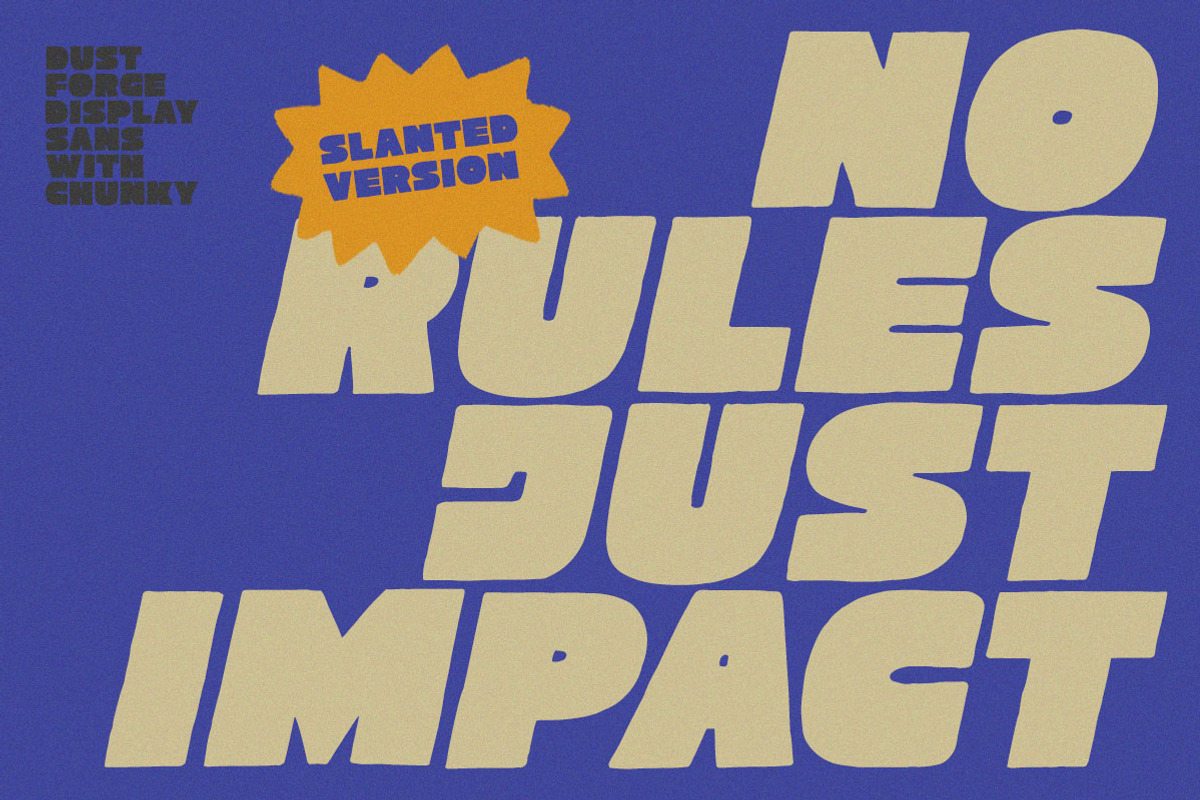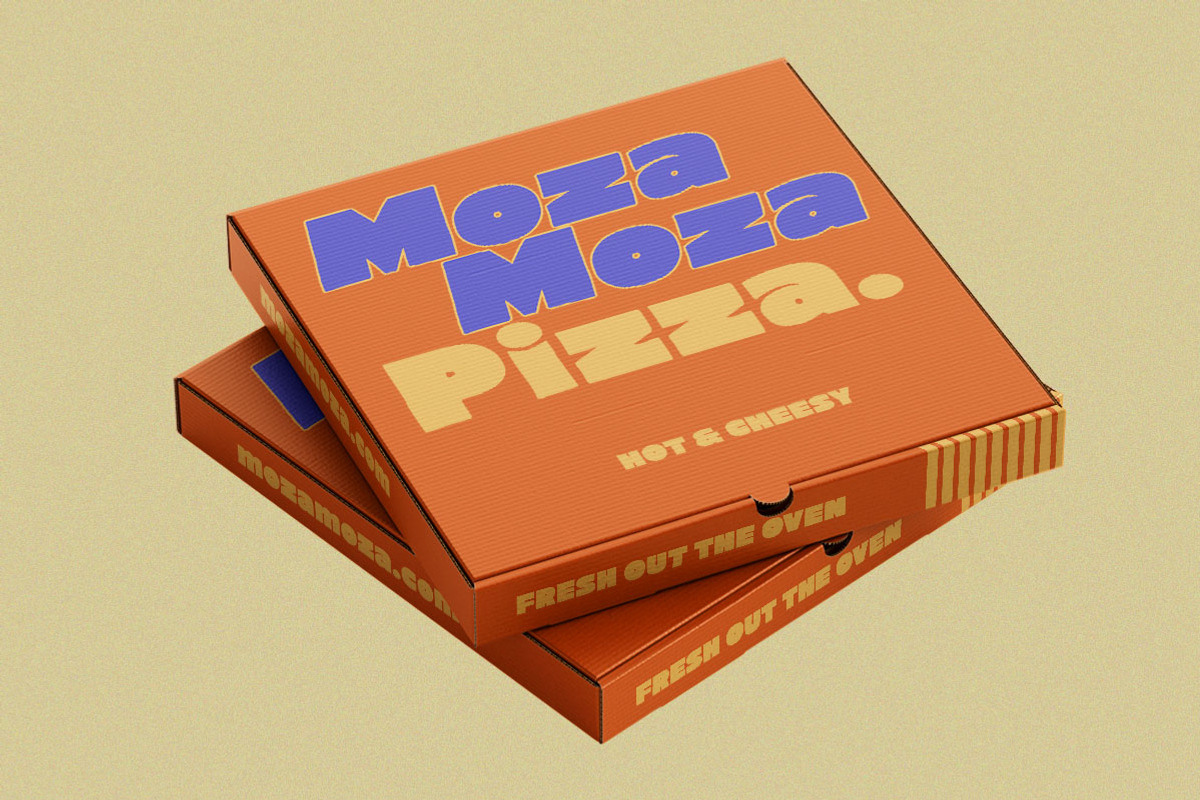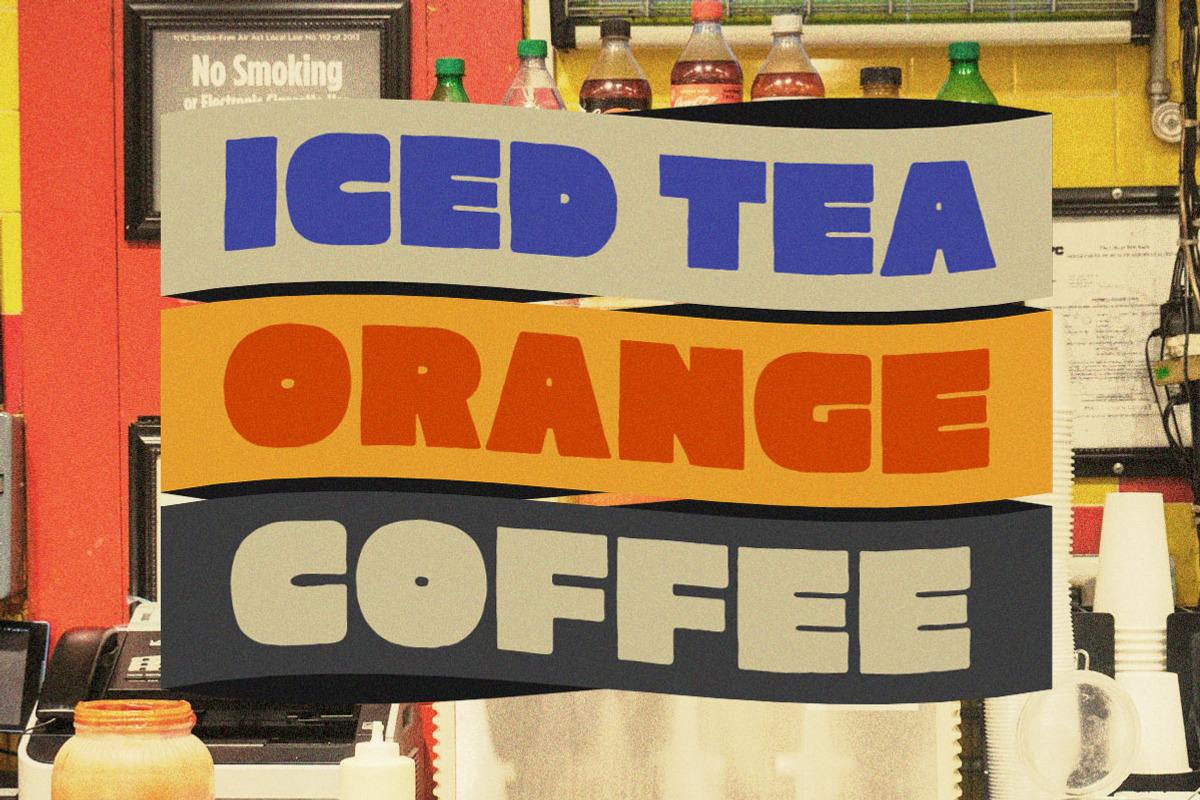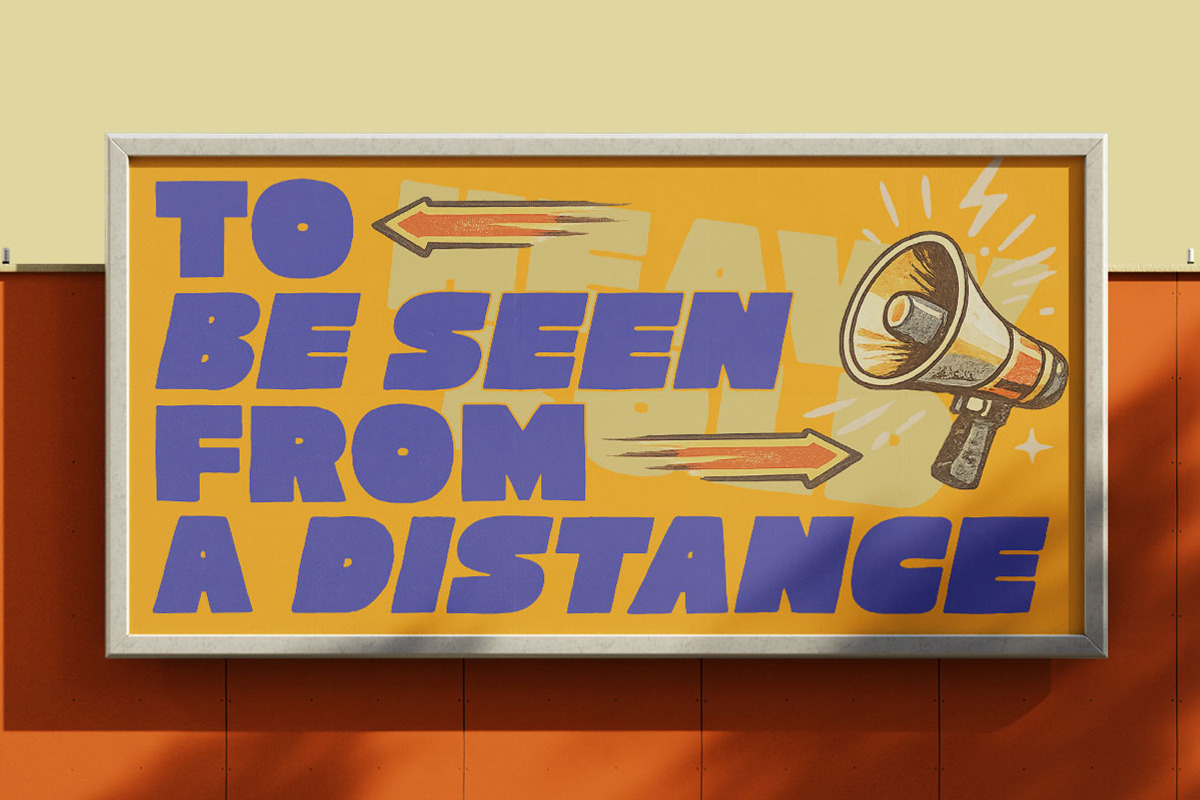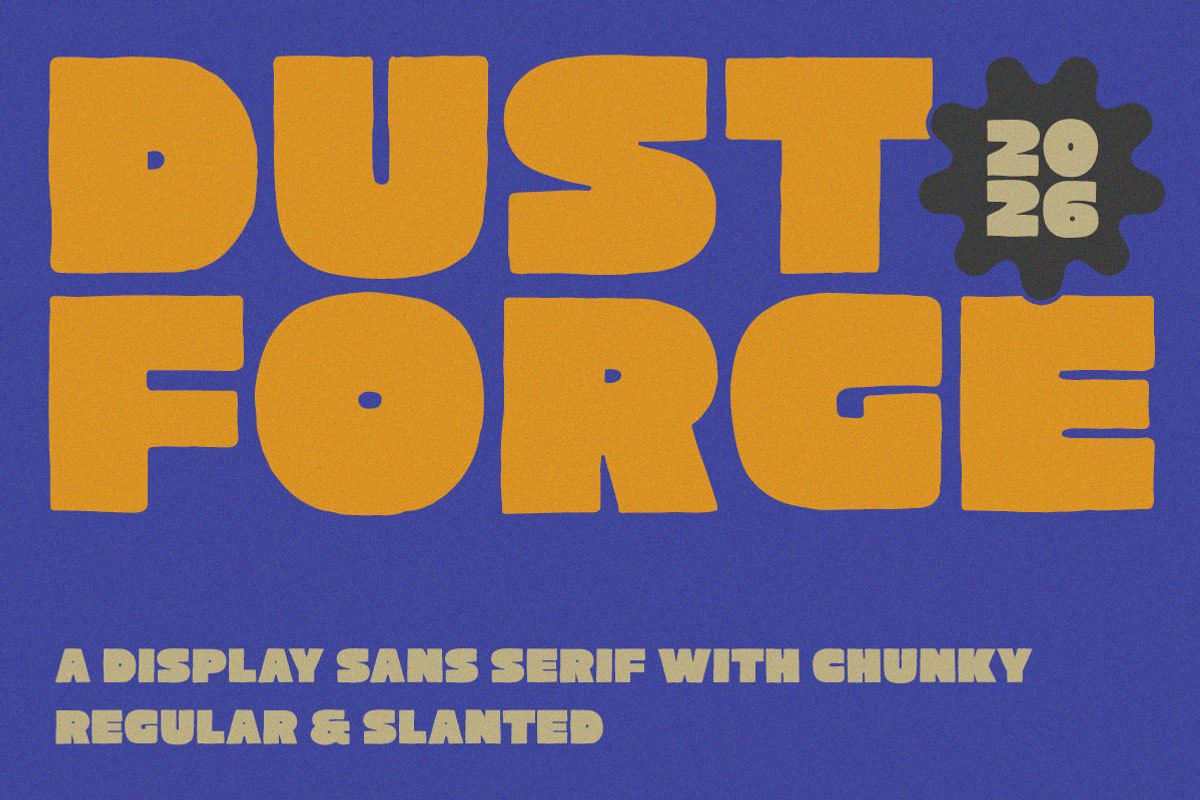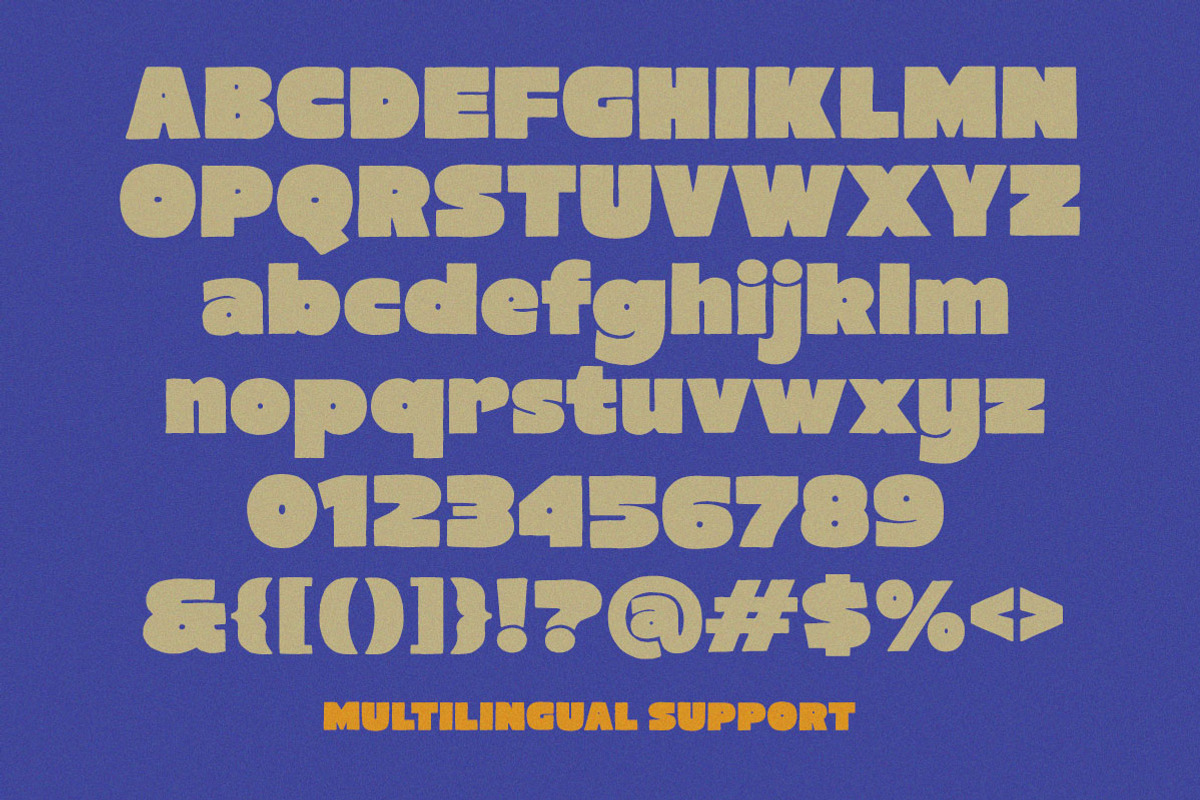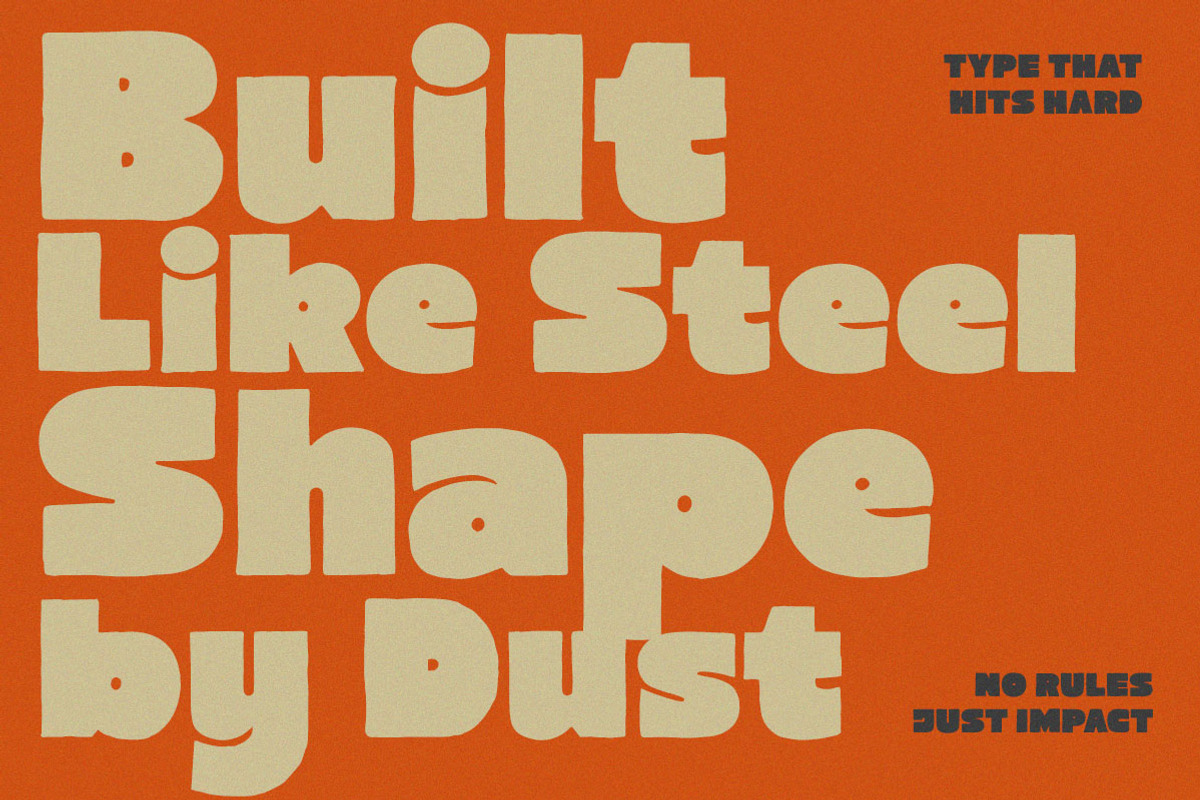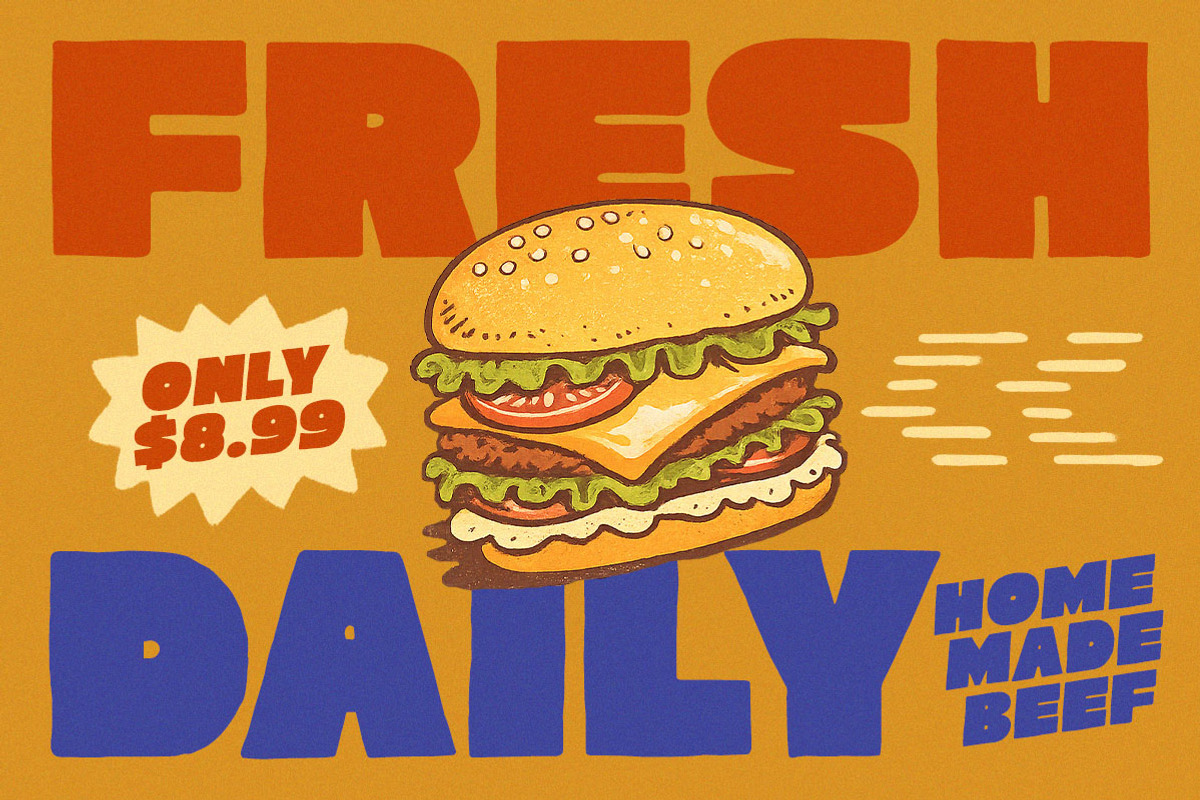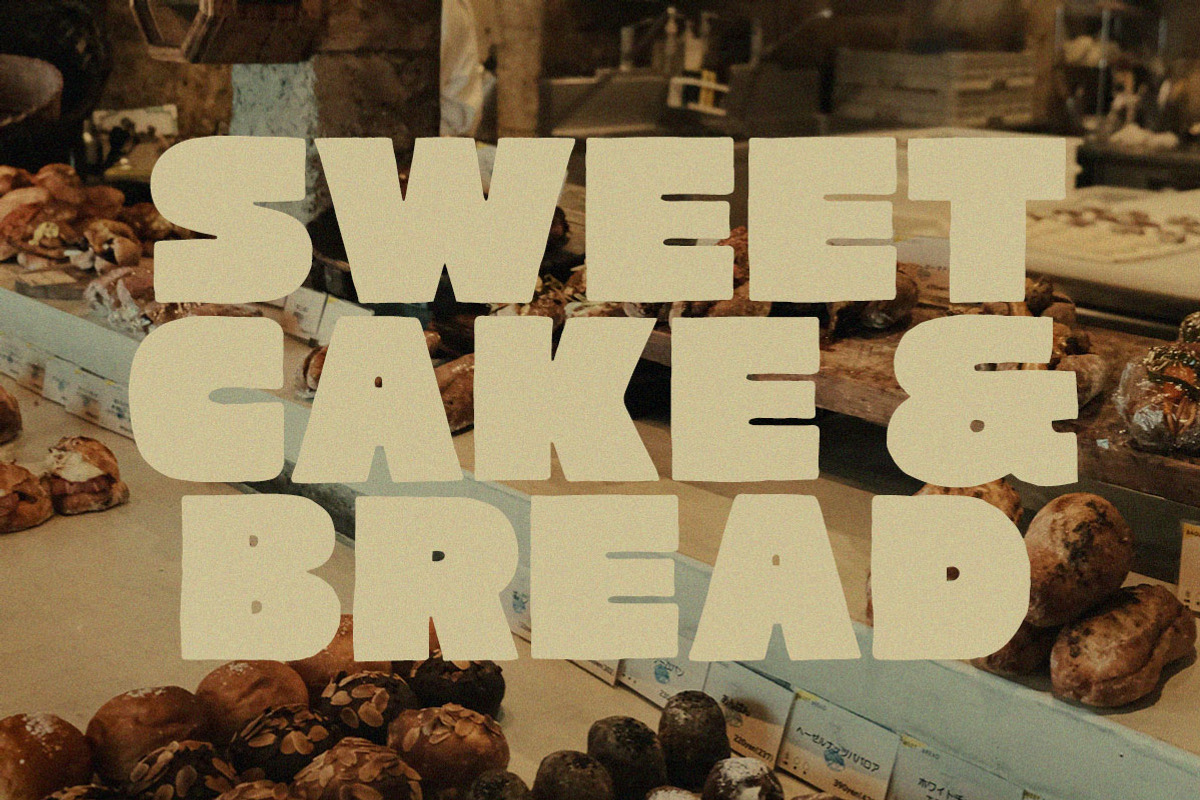
Dust Forge Chunky Sans Display Font
Dust Forge is a chunky display sans serif that hits with a big BOOM! of retro energy and bold attitude. Built with thick curves, soft corners, and playful heavyweight shapes, this font brings instant eye-candy to posters, food branding, packaging, streetwear, album covers, and loud headline designs. The regular and slanted styles give you extra punch for creating fun layouts with a smooth vintage twist.